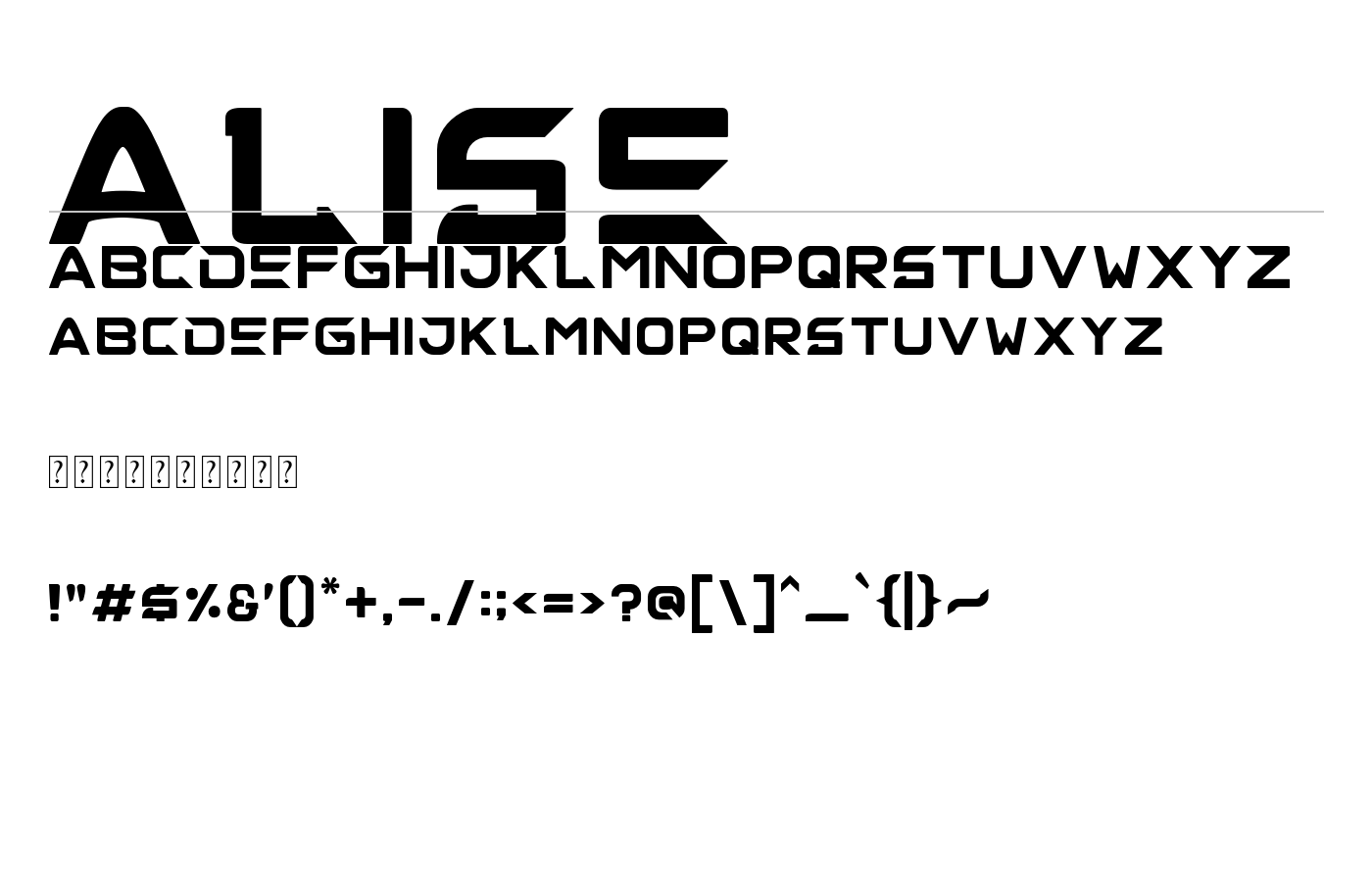
Alise is a bold, futuristic sans serif font with a strong geometric influence and sharp angular lines that create a dynamic, tech-inspired look. Its compact letterforms with distinctive cut corners and unique shapes give it an edgy, modern vibe perfect for branding, headlines, and digital media where a bold, innovative impression is needed.
alise Font
About alise Font
| Font family | alise Font |
| Designer | Nursaygraphic 2019 |